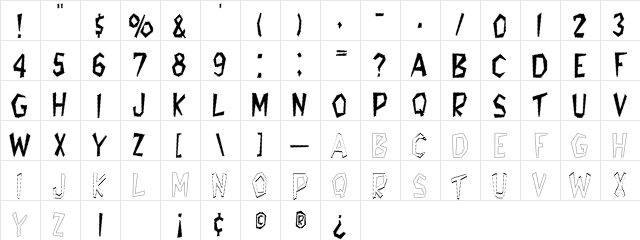
Tappys Regular
Design Context for Tappys Typeface
Tappys is a composed and adaptable typeface that performs quietly and consistently across a wide range of design contexts.